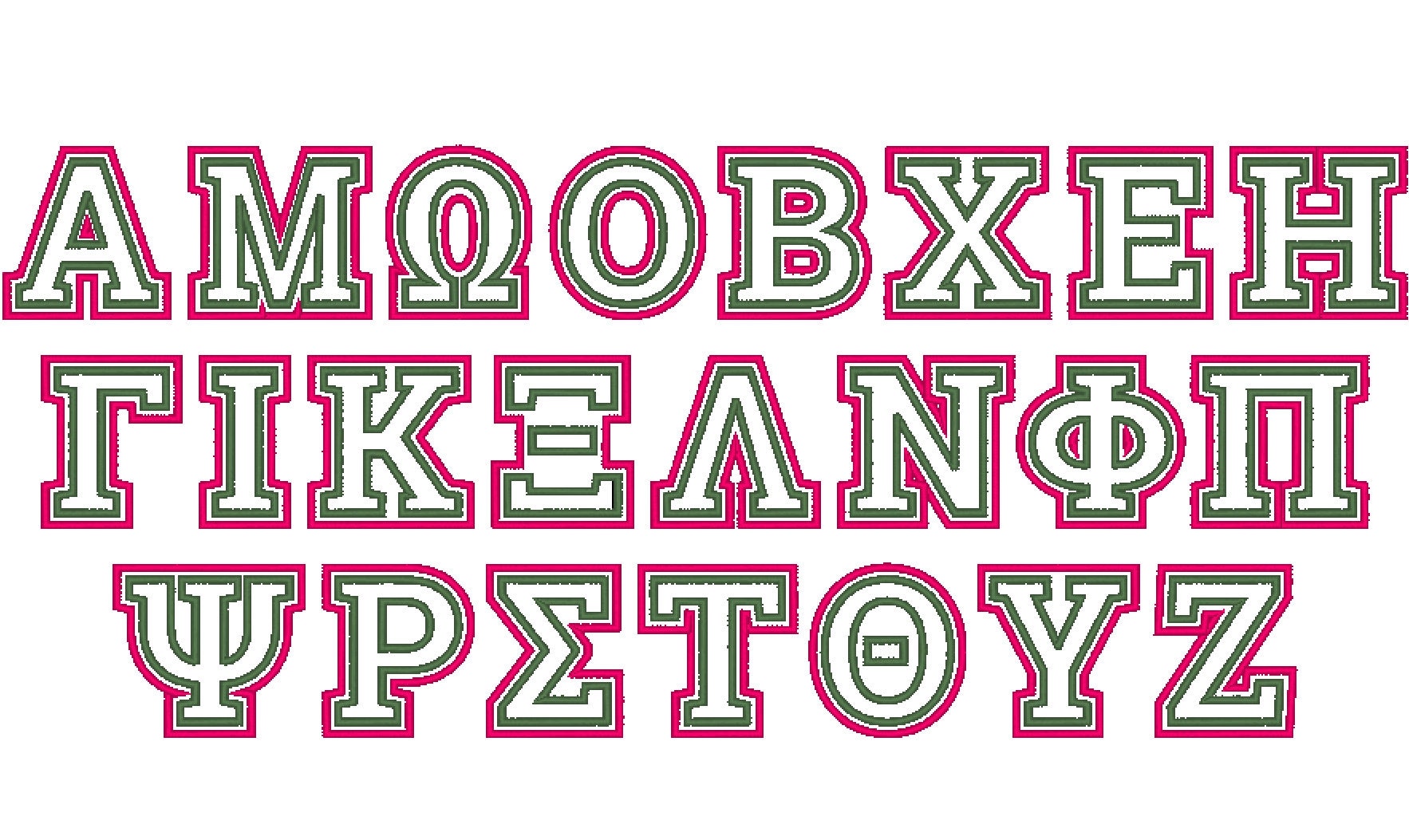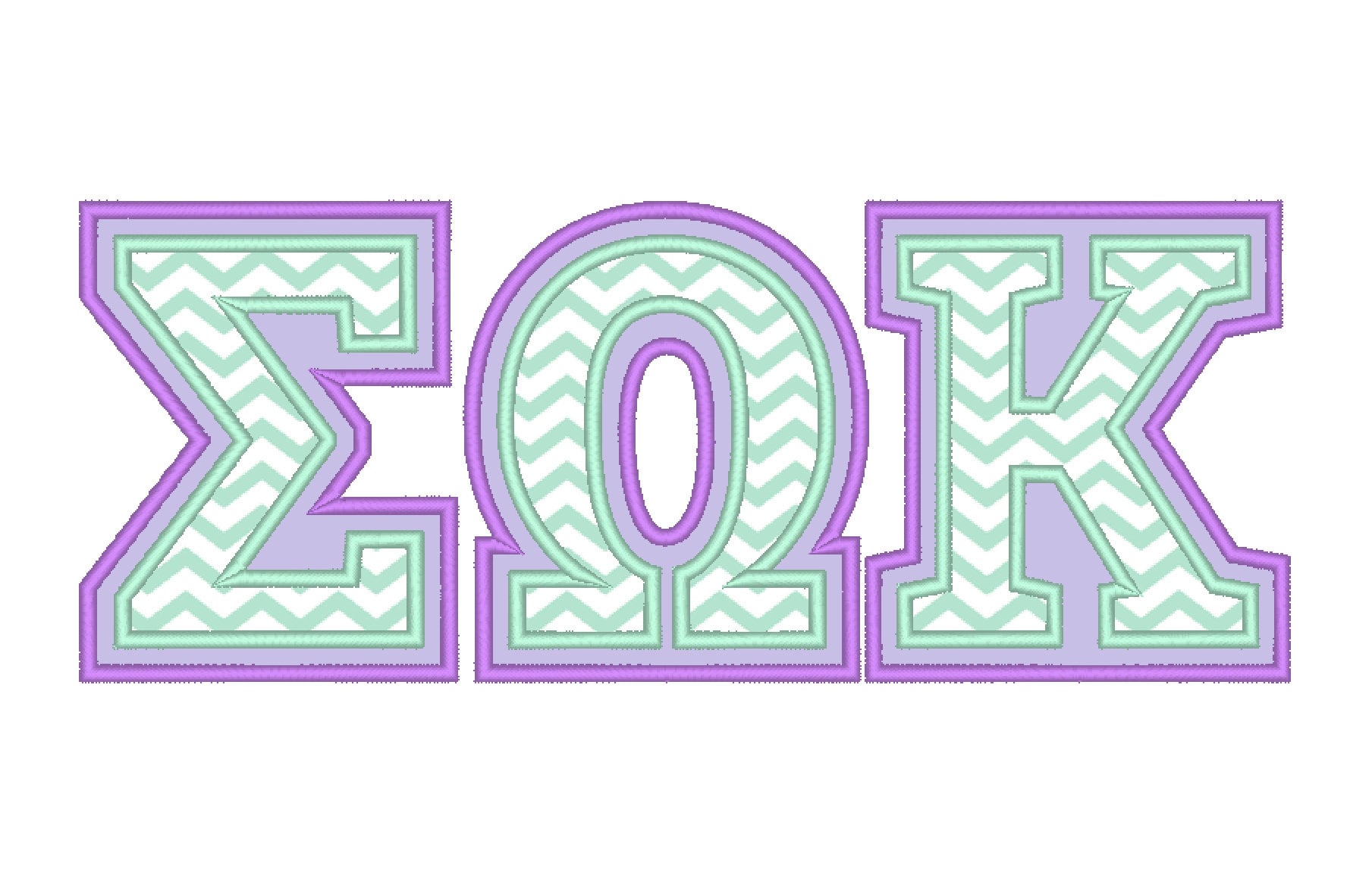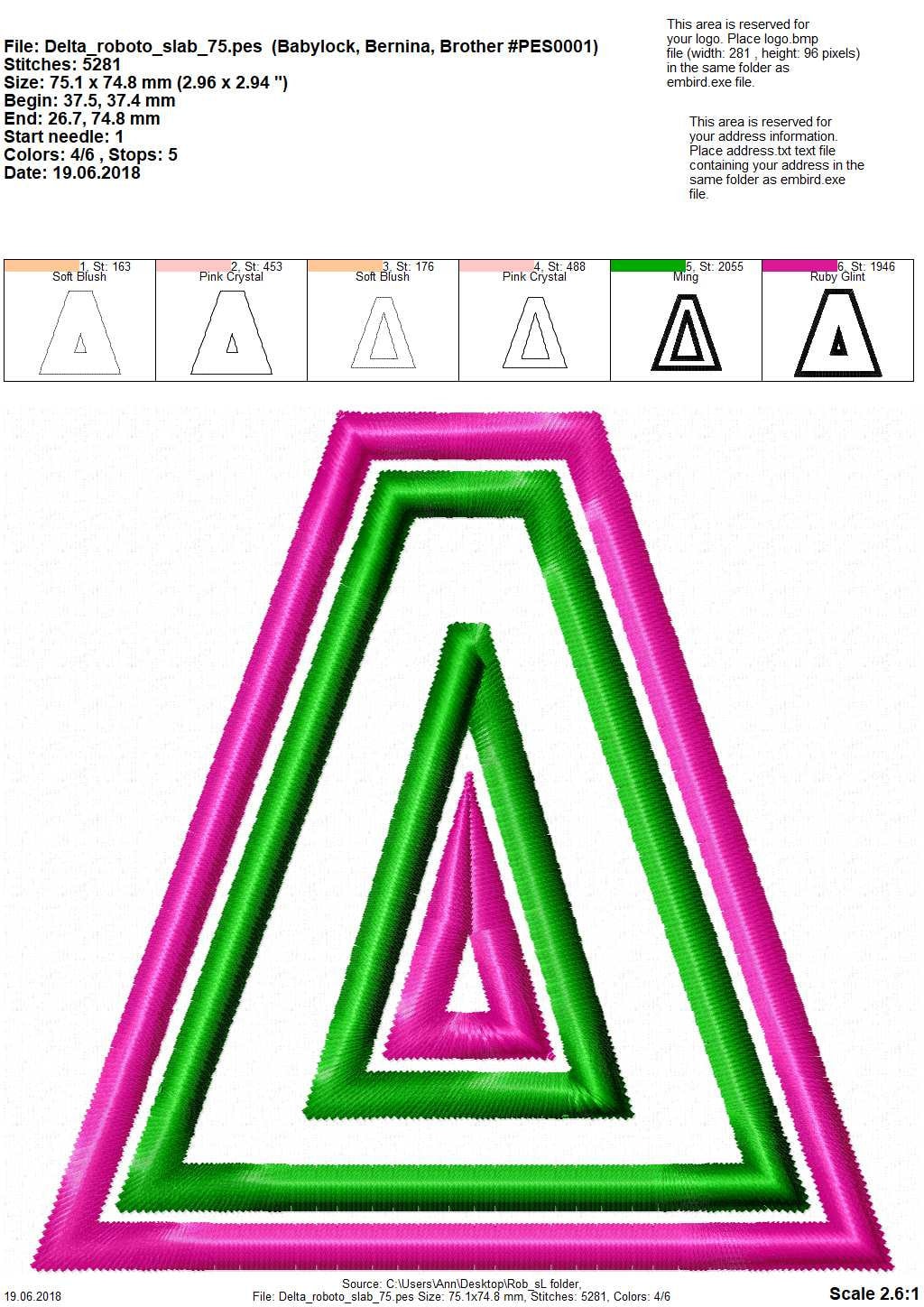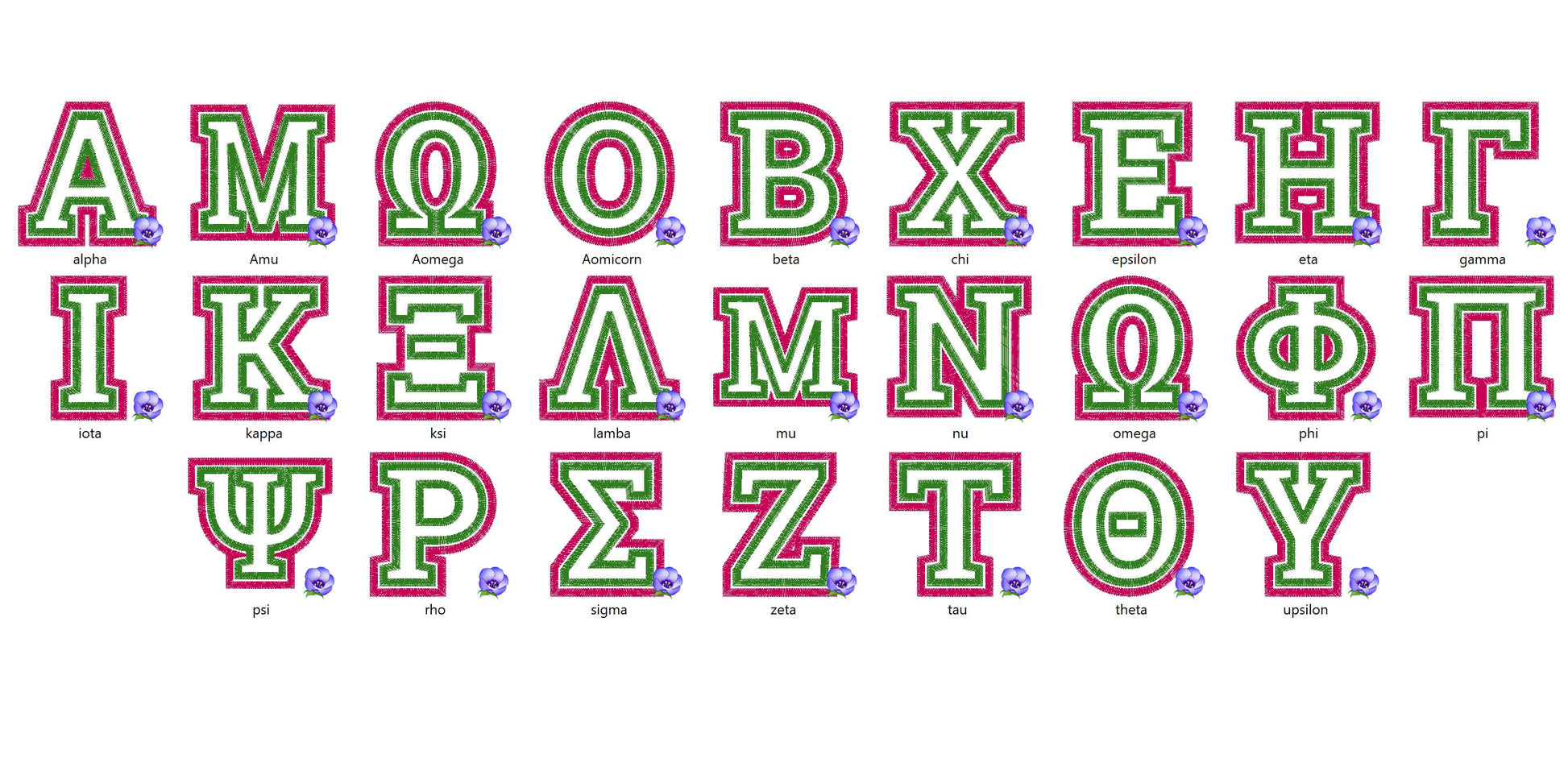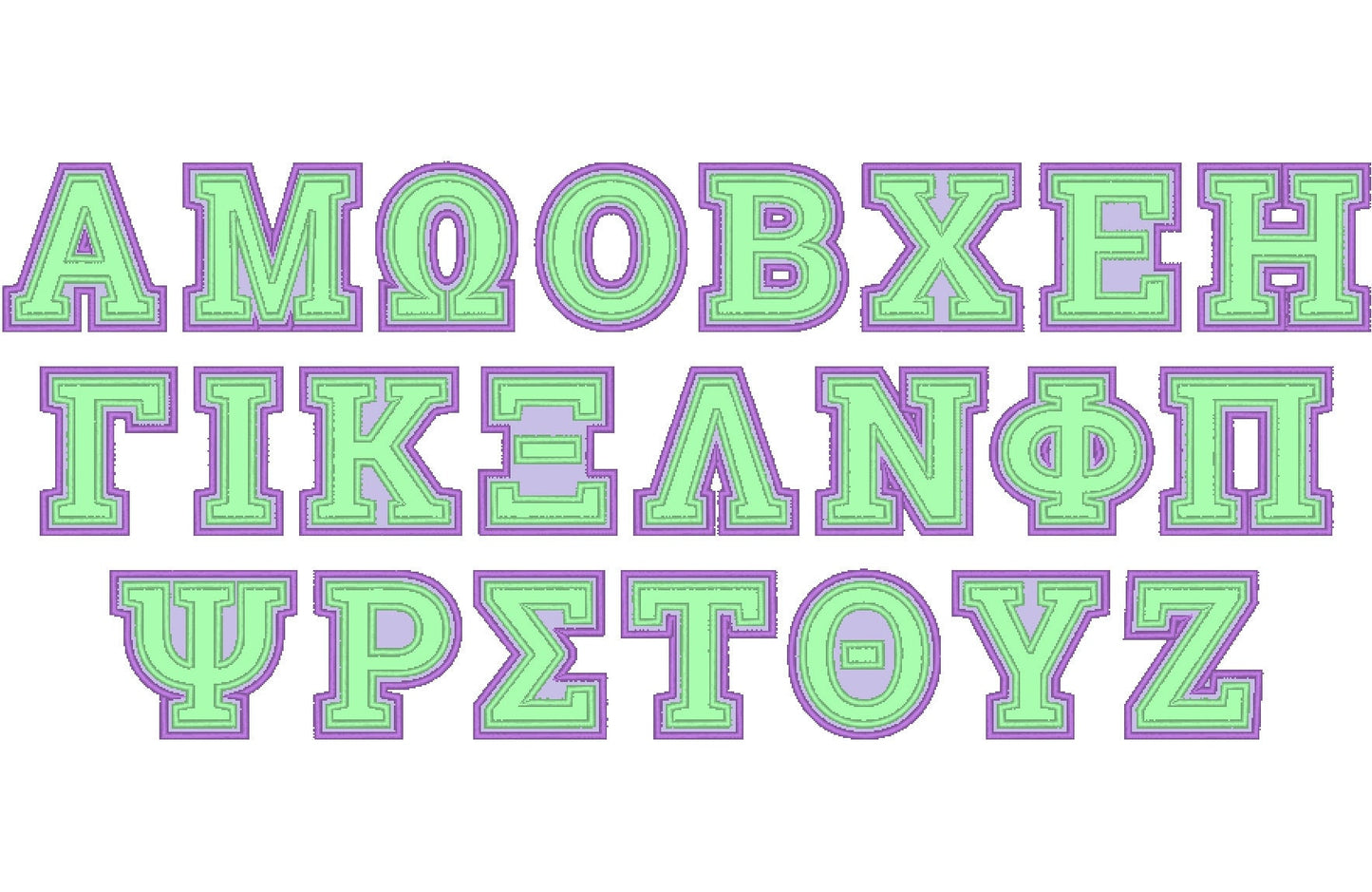
Or click to open the linkThe whole Greek alphabet as a two-layer applique font, made for sorority and fraternity letters. Great on jerseys, sweatshirts, tote bags and pillows.
Each letter is a two-step double applique: two fabric layers in two colors. Letters come in five sizes: 2.9, 3.35, 3.75, 4.3 and 5.1 inches.